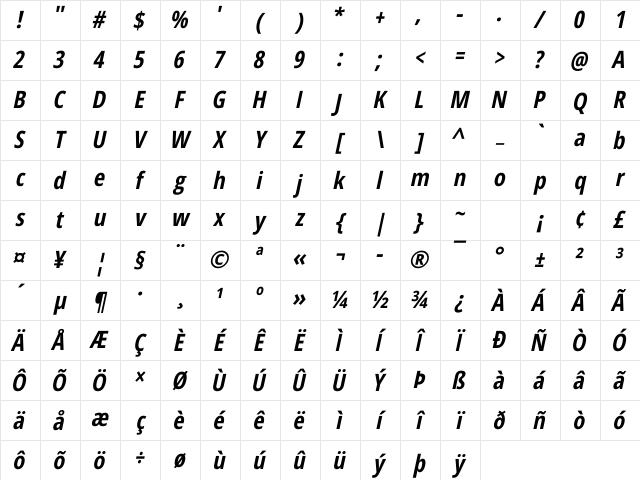
Open Sans Hebrew Condensed Bold Italic
Foundry: Ascender Corporation, Yanek Iontef
Complete Open Sans Hebrew Condensed Bold Italic glyph index. Displaying only characters natively supported by Open Sans Hebrew Condensed Bold Italic font.
Design Context for Open Sans Hebrew Condensed
Open Sans Hebrew Condensed is a composed and adaptable typeface that performs quietly and consistently across a wide range of design contexts. The slanted form adds forward momentum and visual energy. Its bold stroke weight gives it real presence on the page. Its narrow stance lets it pack a punch even in space-constrained designs.
Pro Tip: Use Open Sans Hebrew Condensed for emphasis, pull quotes, and subheadings where its slanted energy can add rhythm to the layout.